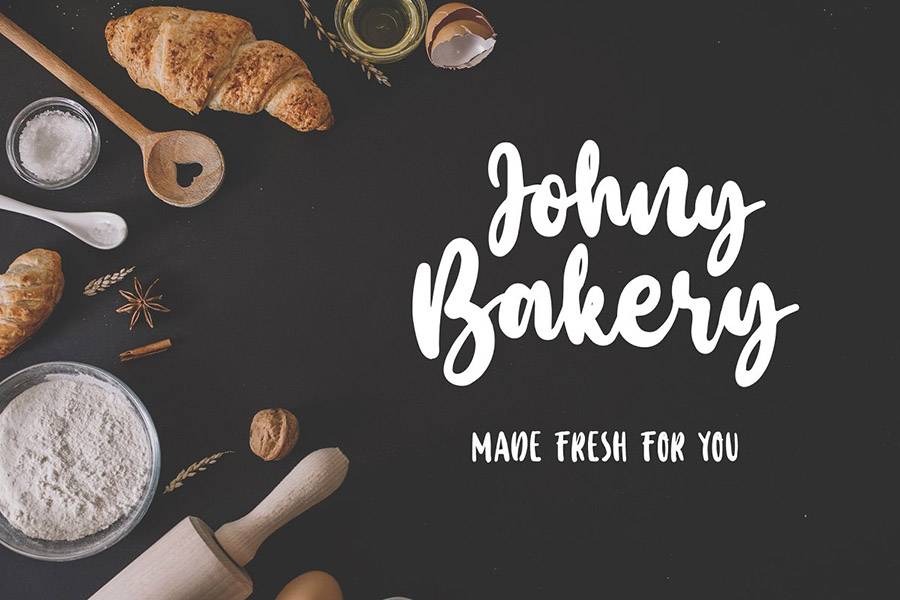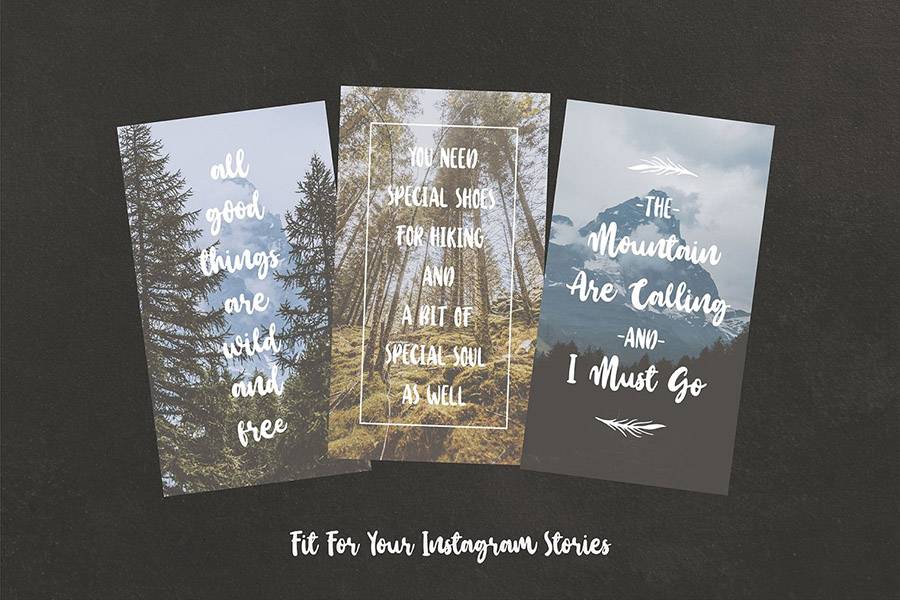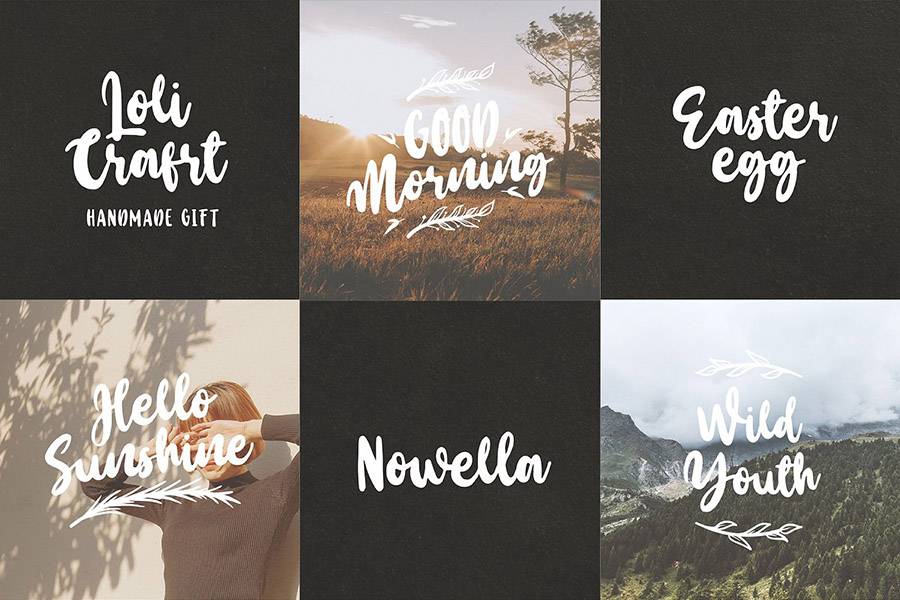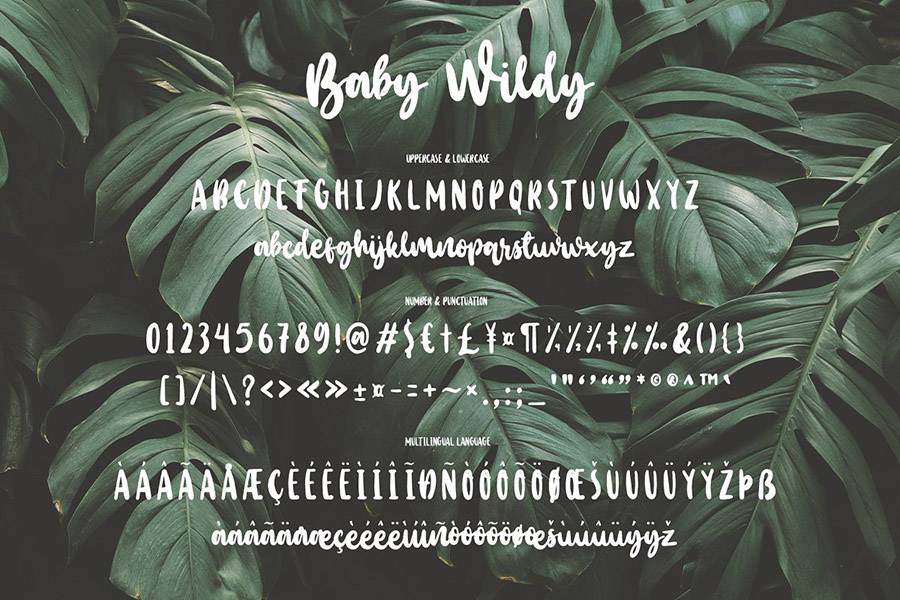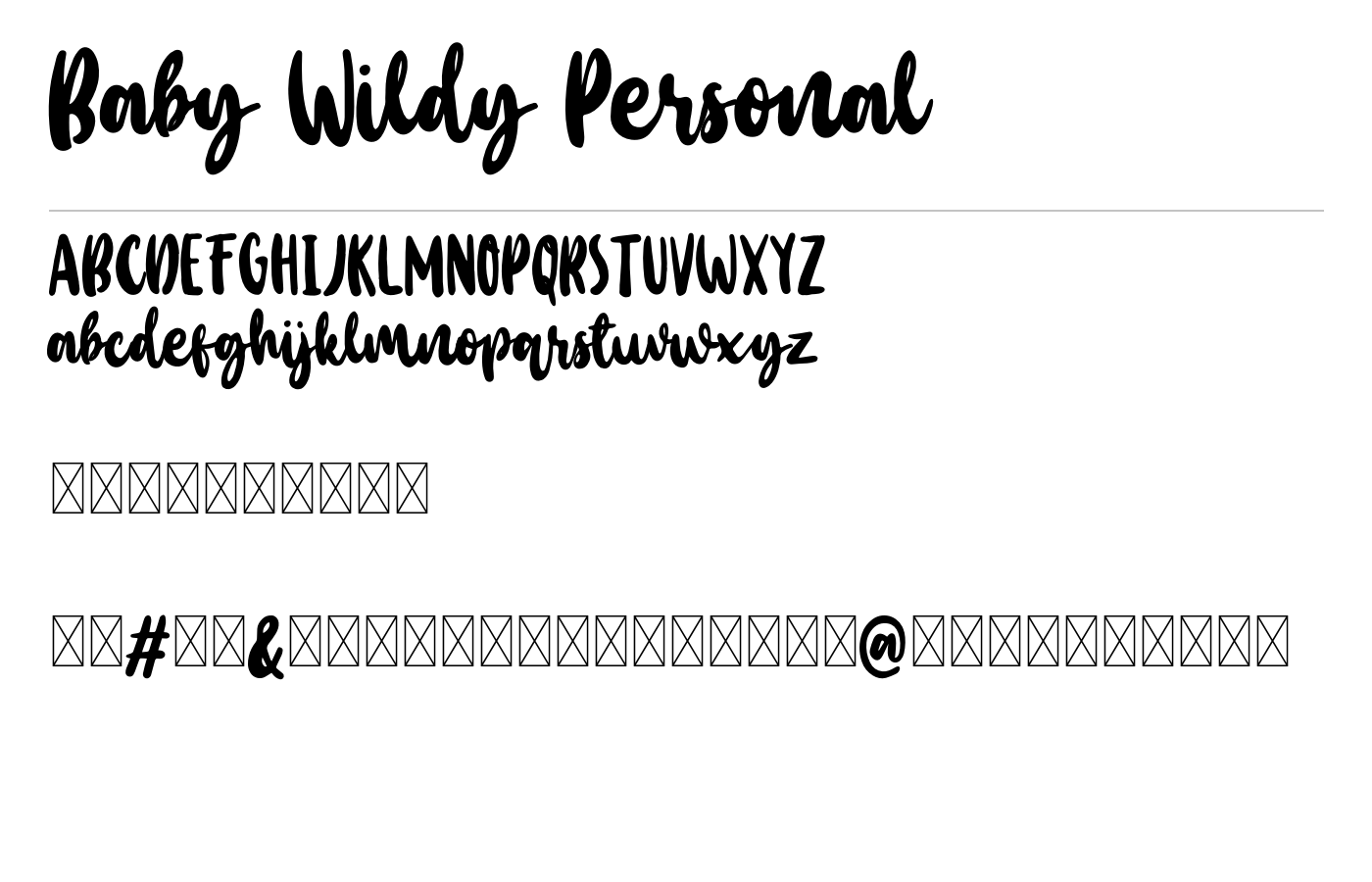
Baby Wildy Handbrush is a lively and casual script font with a hand-painted feel, featuring bold strokes and rounded, organic shapes that create a warm and approachable personality. Its playful yet clear letterforms make it ideal for creative projects, branding, and invitations where a personal, friendly touch is desired. This font works best in headlines, logos, and decorative texts that aim to convey energy and authenticity.
Baby Wildy Handbrush Font
About Baby Wildy Handbrush Font
| Font family | Baby Wildy Handbrush Font |
| Release date | 2019-06-12 |
| Designer | Andika Setiawan |